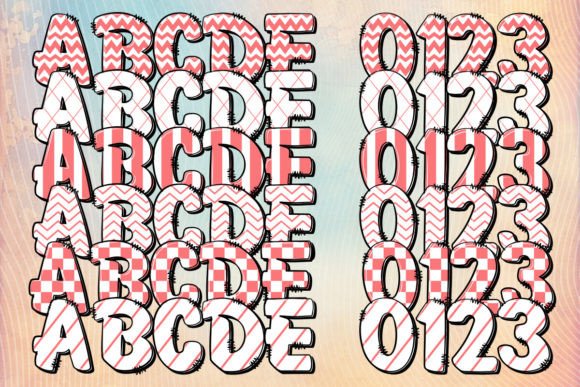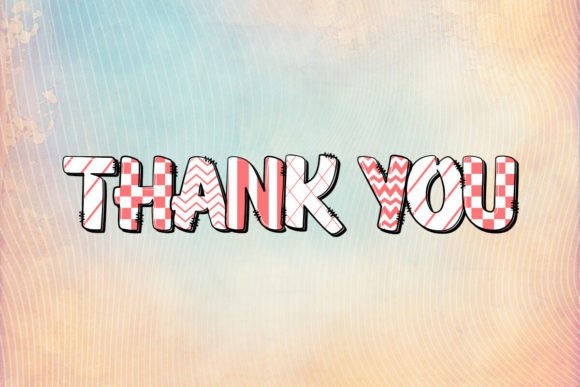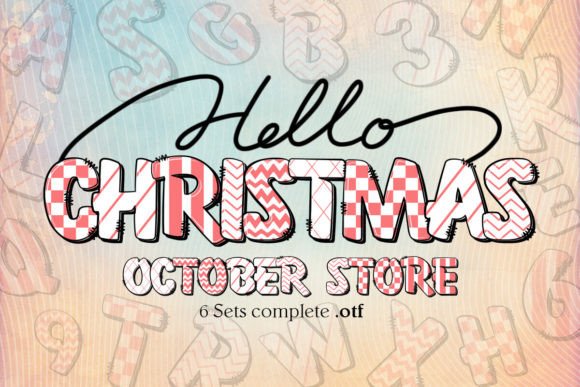
Deck the Halls with the Christmas Font Six-Pack Collection
It’s the most wonderful time of the year! As designers and crafters, you’re probably gearing up to create festive projects that capture the essence of Christmas. Look no further than our Christmas Bundle Color Fonts, a six-pack collection that’s sure to become a staple in your design library. This merry bundle is designed to add a dash of holiday cheer to your t-shirts, mugs, digital graphics, crafts, and greeting cards.
What to Expect from the Christmas Font Collection
Our Christmas Font collection is more than just a set of fonts – it’s an experience. The bundle includes six dynamic OTF Color Fonts, each with its own unique character and charm. Whether you’re looking for something elegant and sophisticated or playful and whimsical, we’ve got you covered. These decorative Christmas fonts are designed to transform your creations into timeless pieces that encapsulate the holiday spirit.
Key Features of the Christmas Font Collection
- Six dynamic OTF Color Fonts: Each font has its own distinct personality, ensuring you’ll find the perfect fit for your project.
- Festive flair for various projects: Use these fonts to create stunning t-shirts, mugs, digital graphics, crafts, and greeting cards that are sure to delight.
Tips for Using the Christmas Font Collection
To get the most out of our Christmas Font collection, here are a few tips:
- Experiment with different font pairings: Combine our Christmas fonts with other fonts to create unique and eye-catching designs.
- Play with colors and textures: Take advantage of the color version’s capabilities and add depth and interest to your designs with textures and patterns.
- Don’t be afraid to get creative: Our Christmas fonts are designed to inspire you, so don’t be afraid to try new things and push the boundaries of what’s possible.
Why Choose the Christmas Font Collection?
With so many fonts available, why choose our Christmas Font collection? Here are just a few reasons:
- High-quality design: Our fonts are designed with precision and attention to detail, ensuring they look great in any design.
- Unique and festive: Our Christmas fonts are designed to capture the essence of the holiday season, making your designs stand out from the crowd.
- Versatile: Whether you’re a designer, crafter, or DIY enthusiast, our Christmas fonts can be used in a variety of projects and applications.
Our Christmas Font collection is the perfect way to add some festive flair to your designs. With six dynamic OTF Color Fonts to choose from, you’re sure to find the perfect fit for your project. Whether you’re a seasoned designer or just starting out, our Christmas fonts are designed to inspire you and help you create stunning designs that capture the essence of the holiday season. So why wait? Get your Christmas Font collection today and start creating!